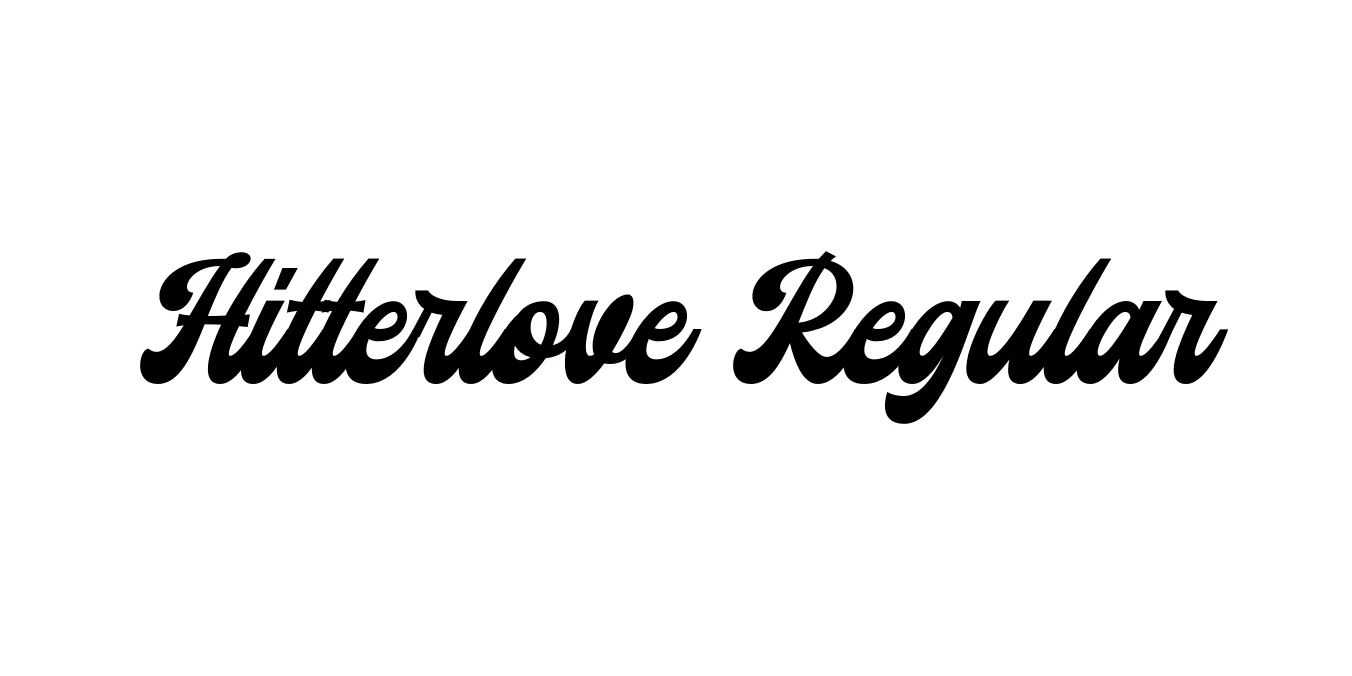
Hitterlove Regular
Designed by Maulana Creative
| Font Name | Hitterlove |
| Designer | Maulana Creative |
Hitterlove Regular is a contemporary brush script typeface designed by the renowned foundry Maulana Creative. It features a fluid, natural hand-drawn aesthetic that combines the elegance of calligraphy with the raw energy of modern brushwork. The font is characterized by its expressive strokes and sophisticated ligatures, which work together to create a seamless, custom-lettered appearance in any design layout.
Originally released to cater to the growing demand for authentic-looking handwritten fonts, Hitterlove has quickly become a favorite for creative professionals. Its versatility allows it to bridge the gap between casual and formal, making it equally effective for high-end luxury branding as it is for personal stationery. With its wide range of character alternates, it remains a powerful tool for those looking to add a personal and emotive touch to their digital and print media.
Hitterlove Regular Best Uses
Creates a unique and memorable identity for luxury and boutique brands.
Adds a romantic and sophisticated touch to invitations and cards.
Perfect for creating engaging quotes and stylized graphics for Instagram.
Ideal for artisanal goods, cosmetics, and apparel labels.